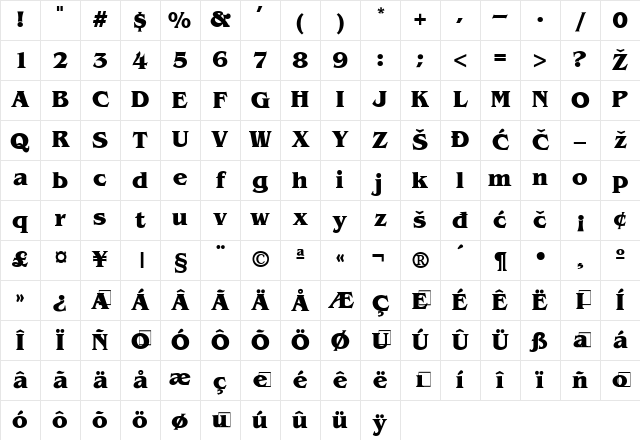
Bangkok Bold YU is a composed and adaptable typeface that performs quietly and consistently across a wide range of design contexts. Its bold stroke weight gives it real presence on the page.